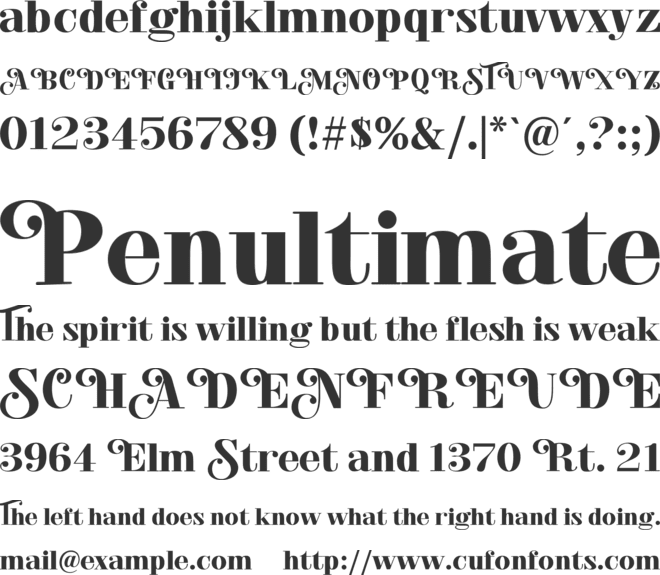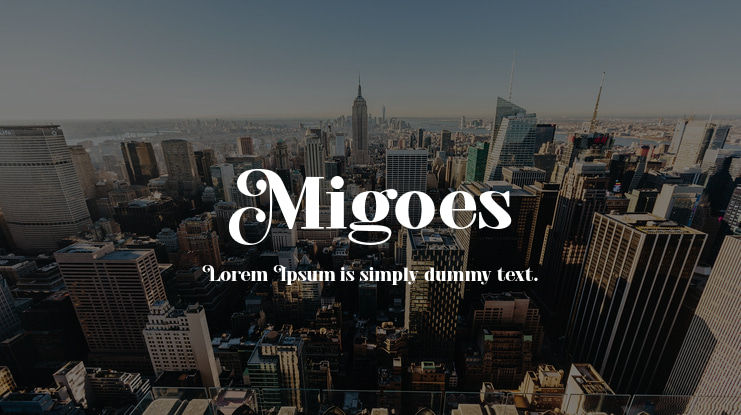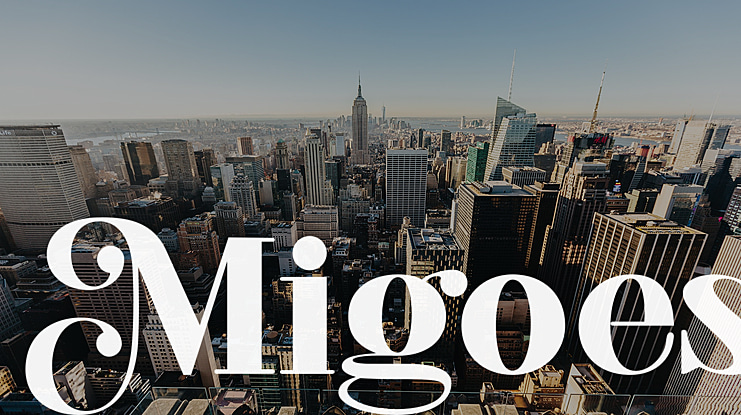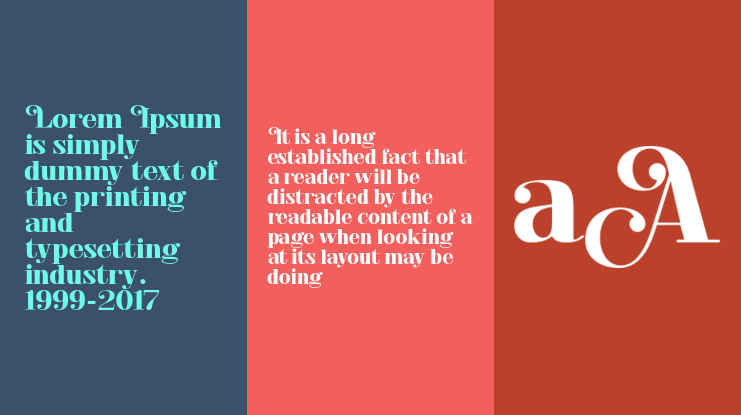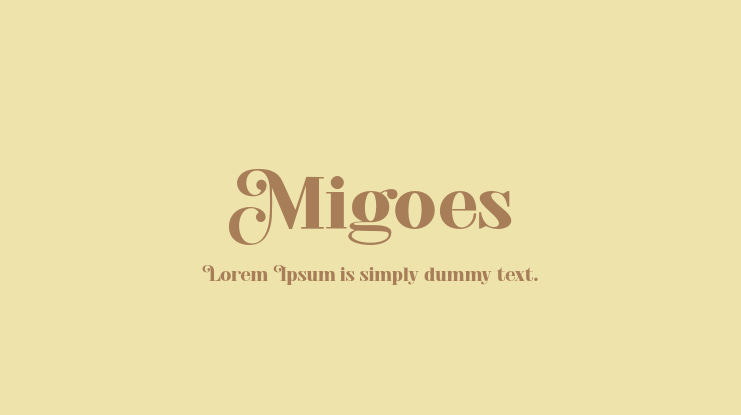
Migoes Font
This a modern serif typeface that honors expressive old style serif typography, complete with your OpenType feature access to access a large selection of alternative fonts and bindings, the choice of fonts you like from large and small font variations to luxurious and elegant looks. This font is perfect for branding projects, Logo design, Apparel Branding, packaging, magazine titles, advertisements, T-shirts, postcards and more.